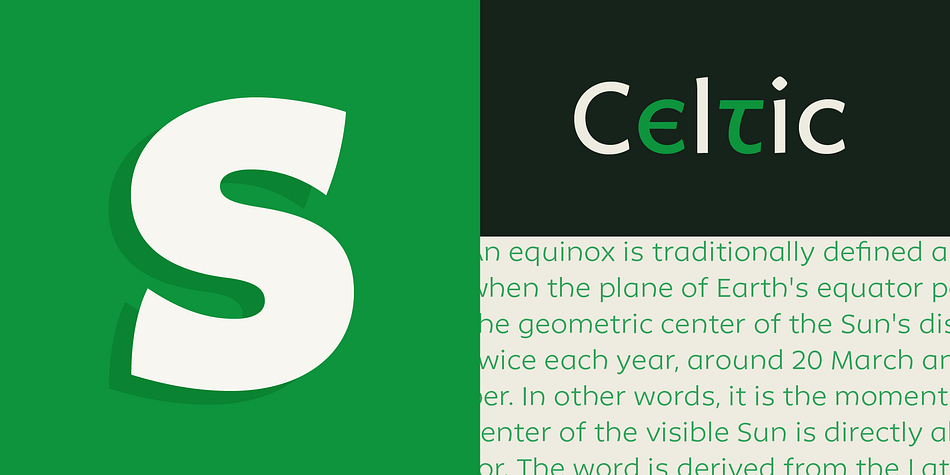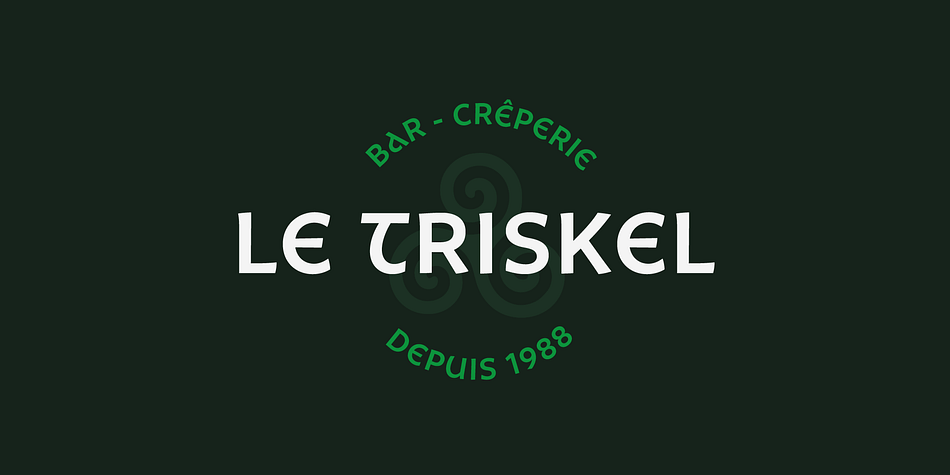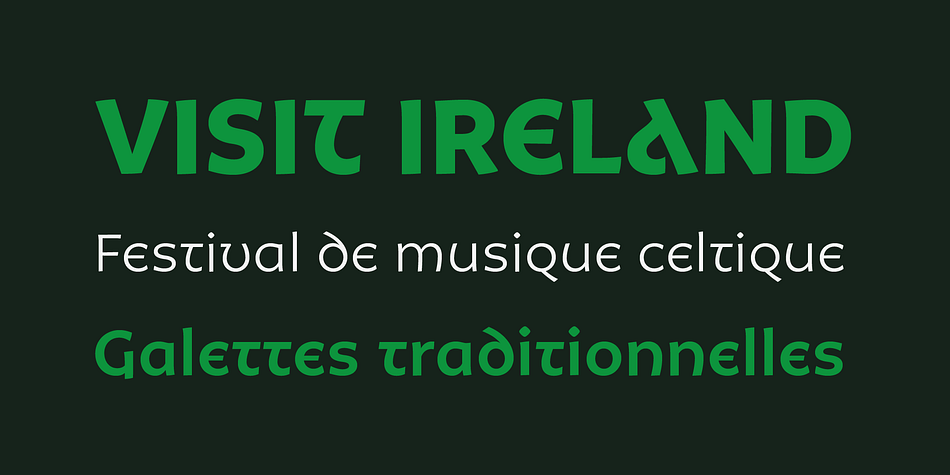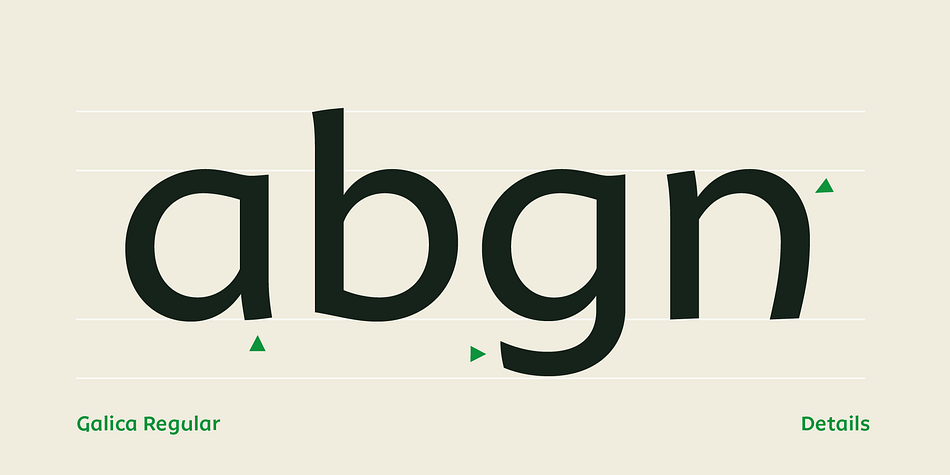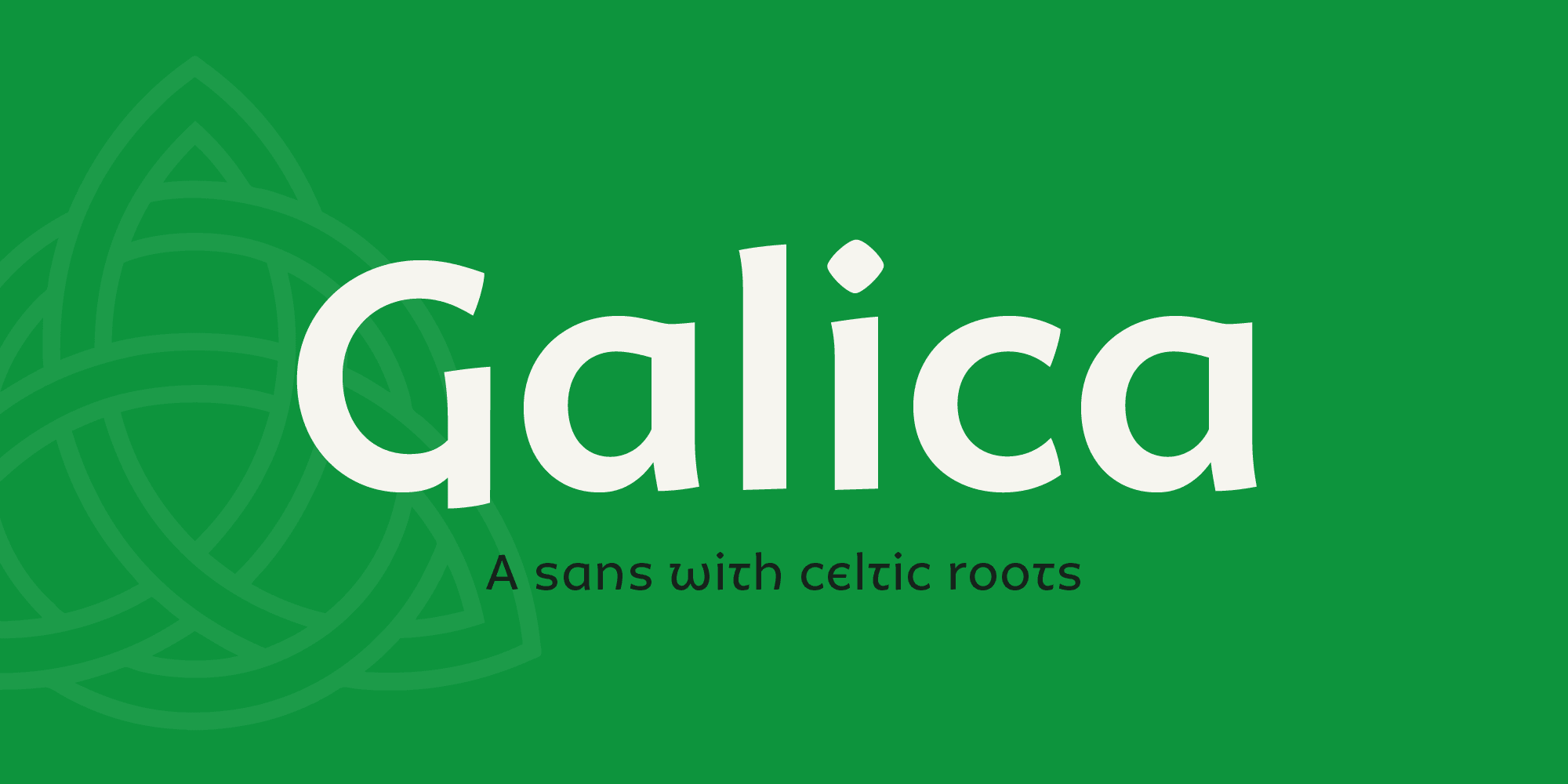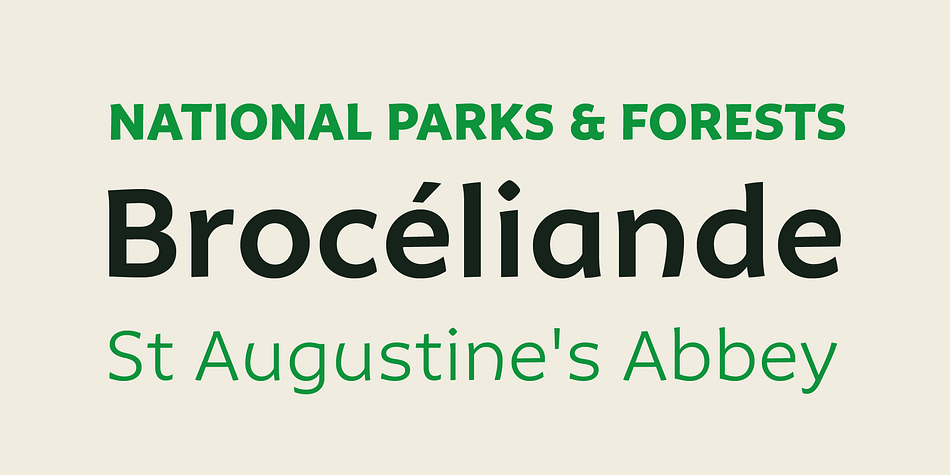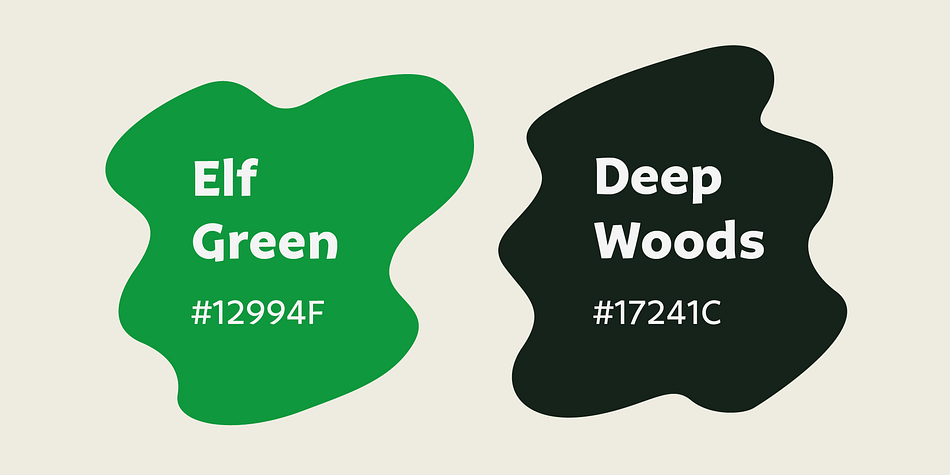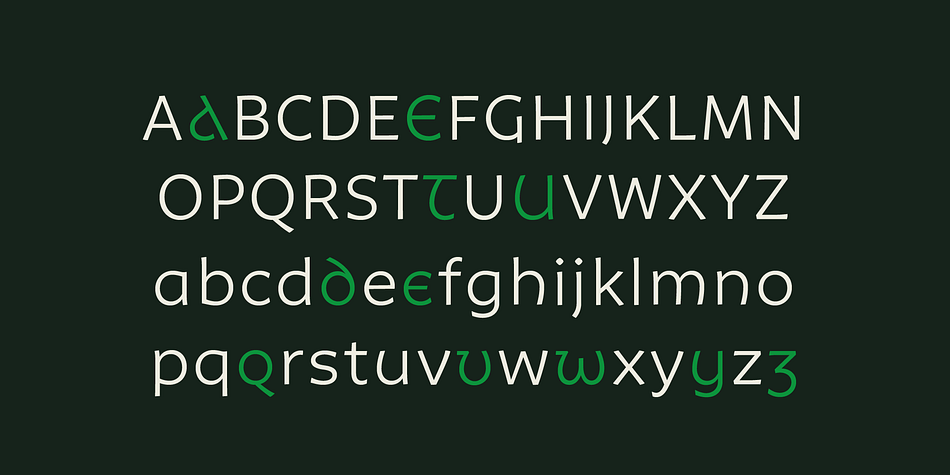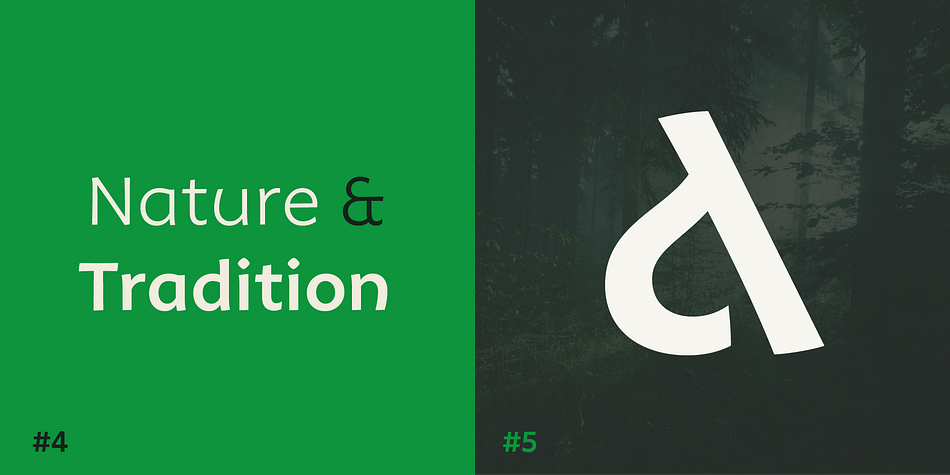
Designed by Joël Carrouché, Galica is a sans serif font family. This typeface has six styles and was published by JCfonts.
Galica is a display sans with celtic vibes in 6 styles, designed by Joël Carrouché. The family supports most European languages and includes a selection of stylistic alternates inspired by uncial calligraphy.
Foundry | JCfonts |
Designer | Joël Carrouché |